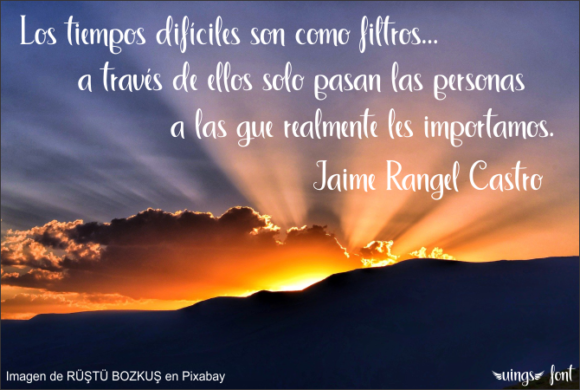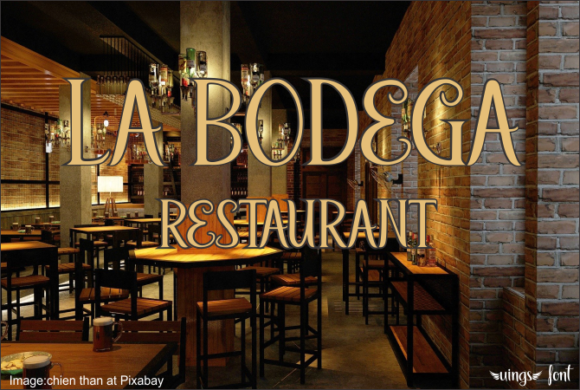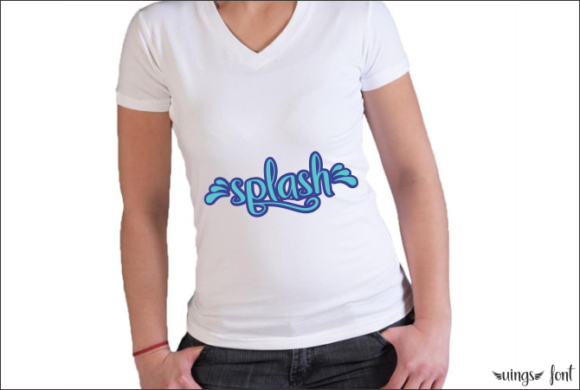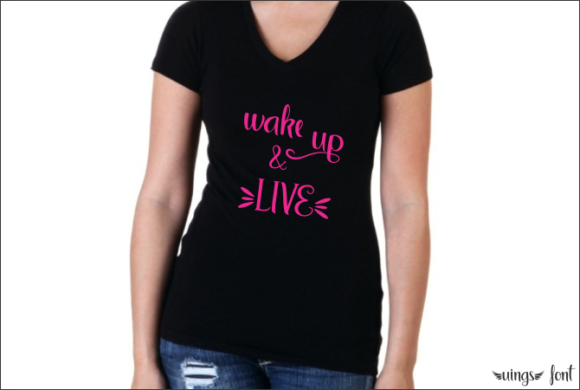
About Uings Font
Uings is a sweet and gentle handwritten font. It has beautiful and well balanced characters and as a result, it matches a wide pool of designs. Add it to your most creative ideas and notice how it makes them come alive!